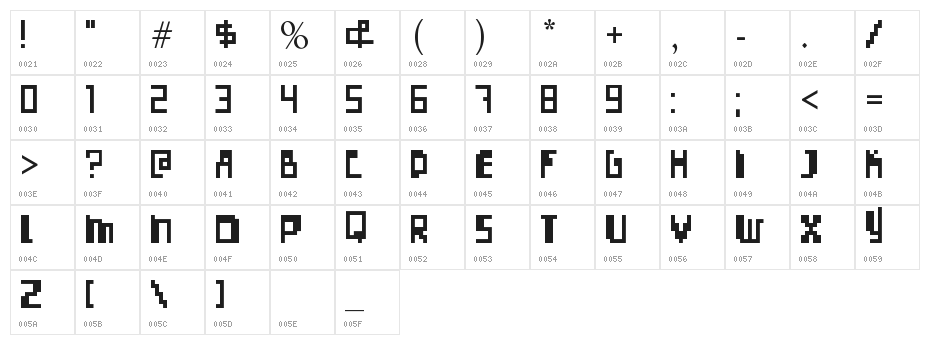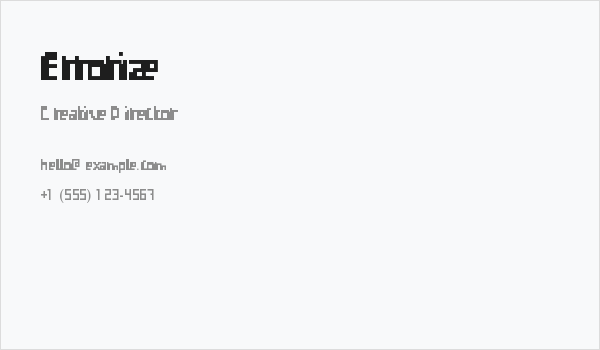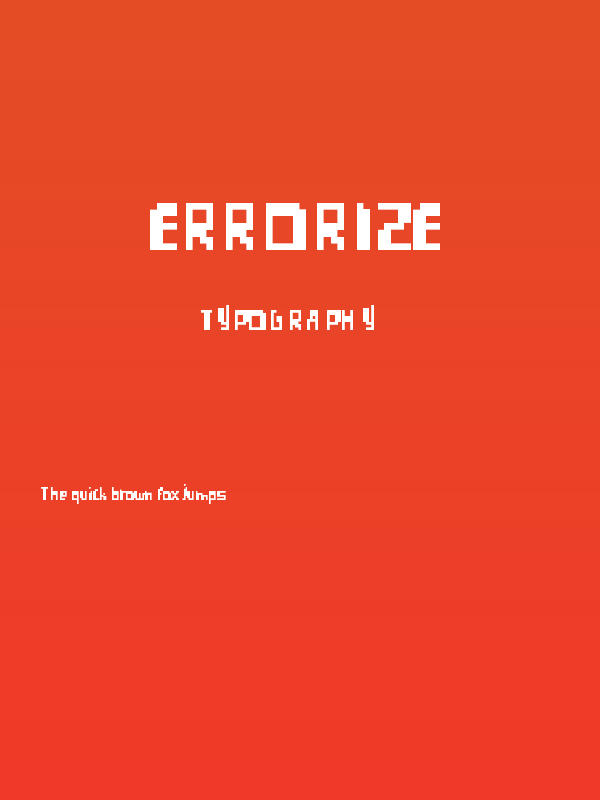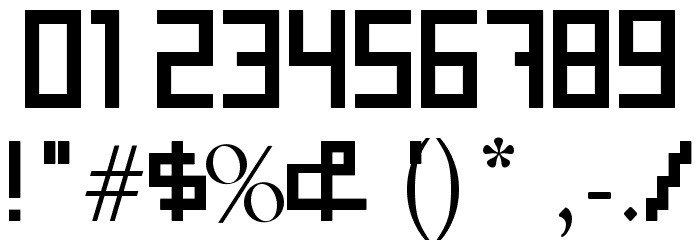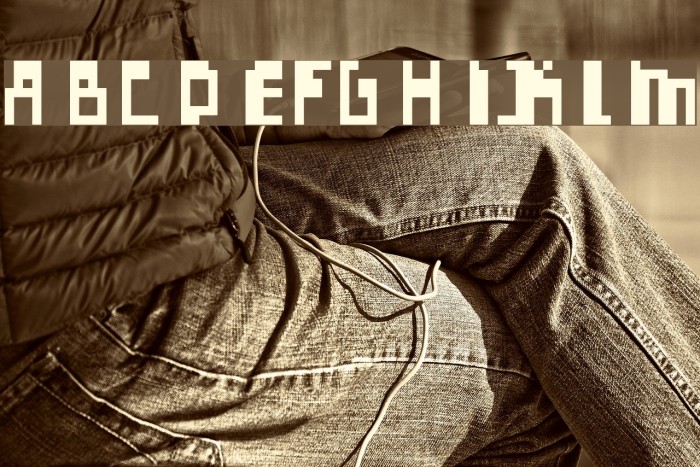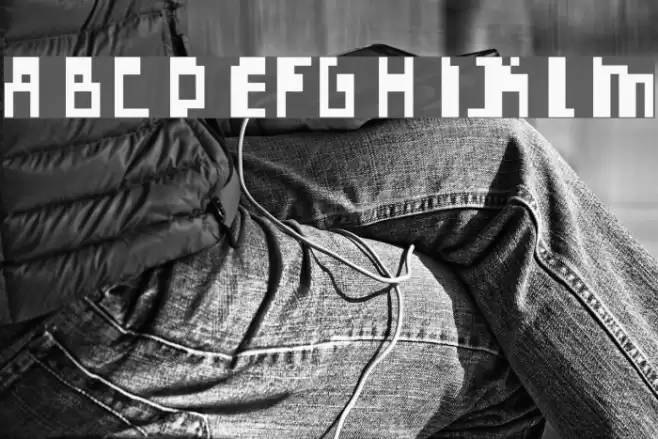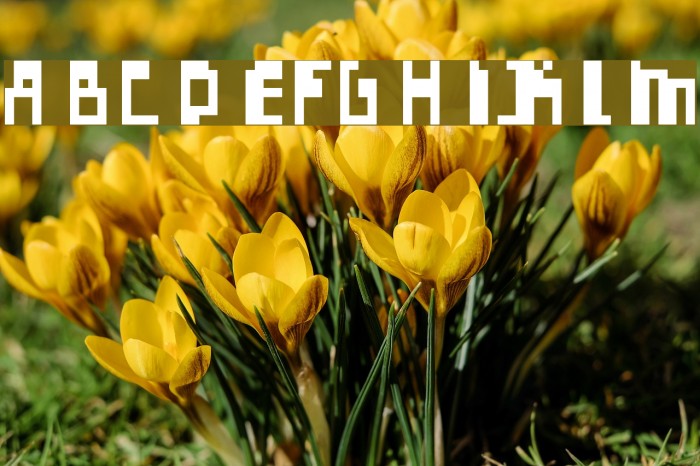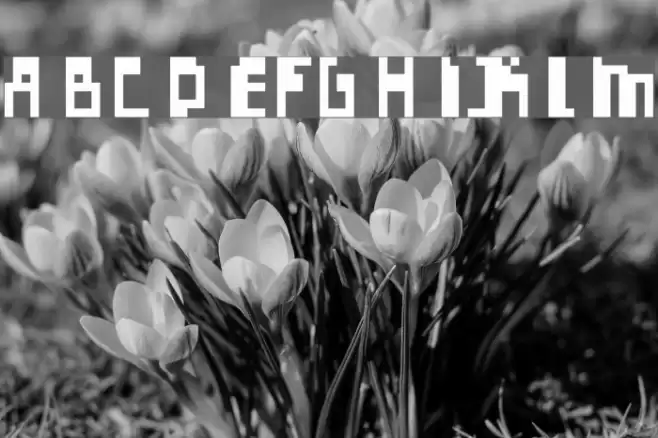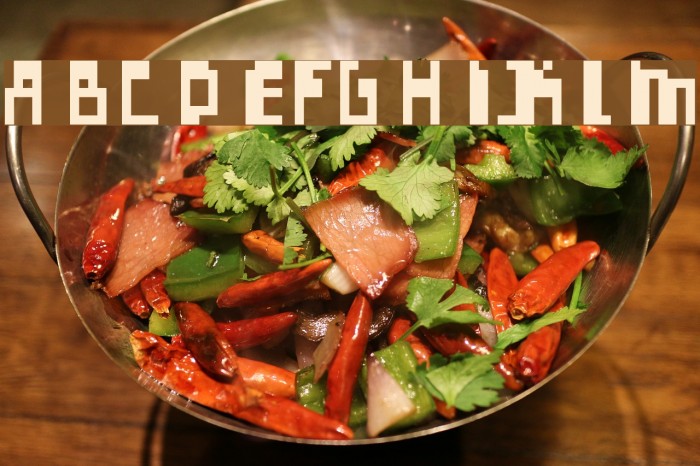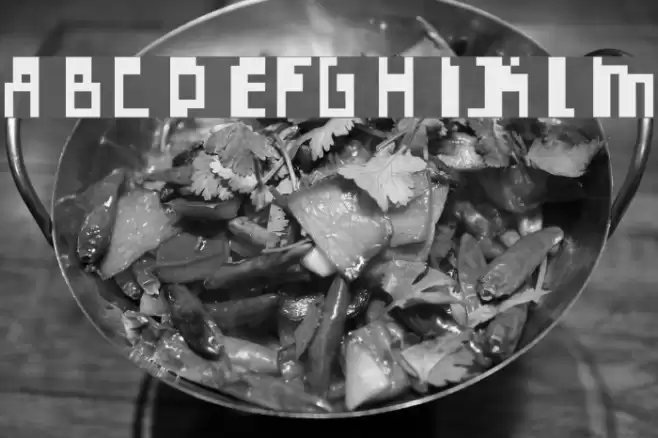
Errorize Font
Errorize Description
This font features a bold, geometric design with a distinctly pixelated appearance, reminiscent of early digital or video game typography. The characters are constructed with sharp, angular edges and uniform stroke widths, giving it a blocky, retro aesthetic. The uppercase and lowercase letters maintain a consistent style, with minimal differentiation in height, enhancing its monospaced feel. Numbers and special characters follow the same design principles, ensuring a cohesive look across all glyphs. The font's simplicity and clarity make it highly legible, even at smaller sizes, while its unique style adds a touch of nostalgia and modernity.
| Overall Style | Retro, Modern |
| Use Case | Headlines, Logos, Digital Art |
| Proposed Projects | Ideal for video game design, digital art projects, retro-themed posters, and tech-related branding. |